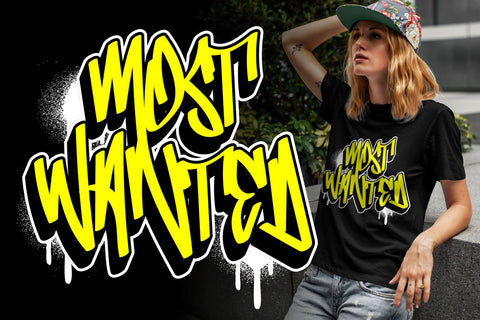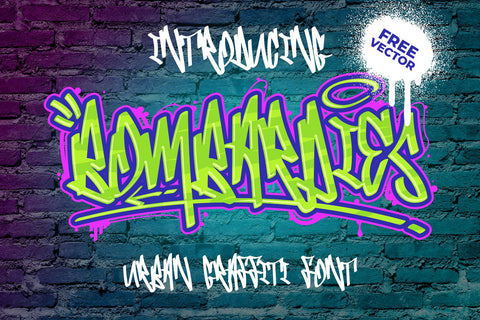
Bombardies - Urban Graffiti Font
Hello, this is Bormbardies modern Graffiti Font!
These fonts are designed so that users can use them more easily and make graffiti designs easier. Bombardies are very suitable for use in various media such as; packaging, logos, labels, posters, shirt designs, bulletins, typography, and many other media, especially with a graffiti look.
Feattures:
- All Caps